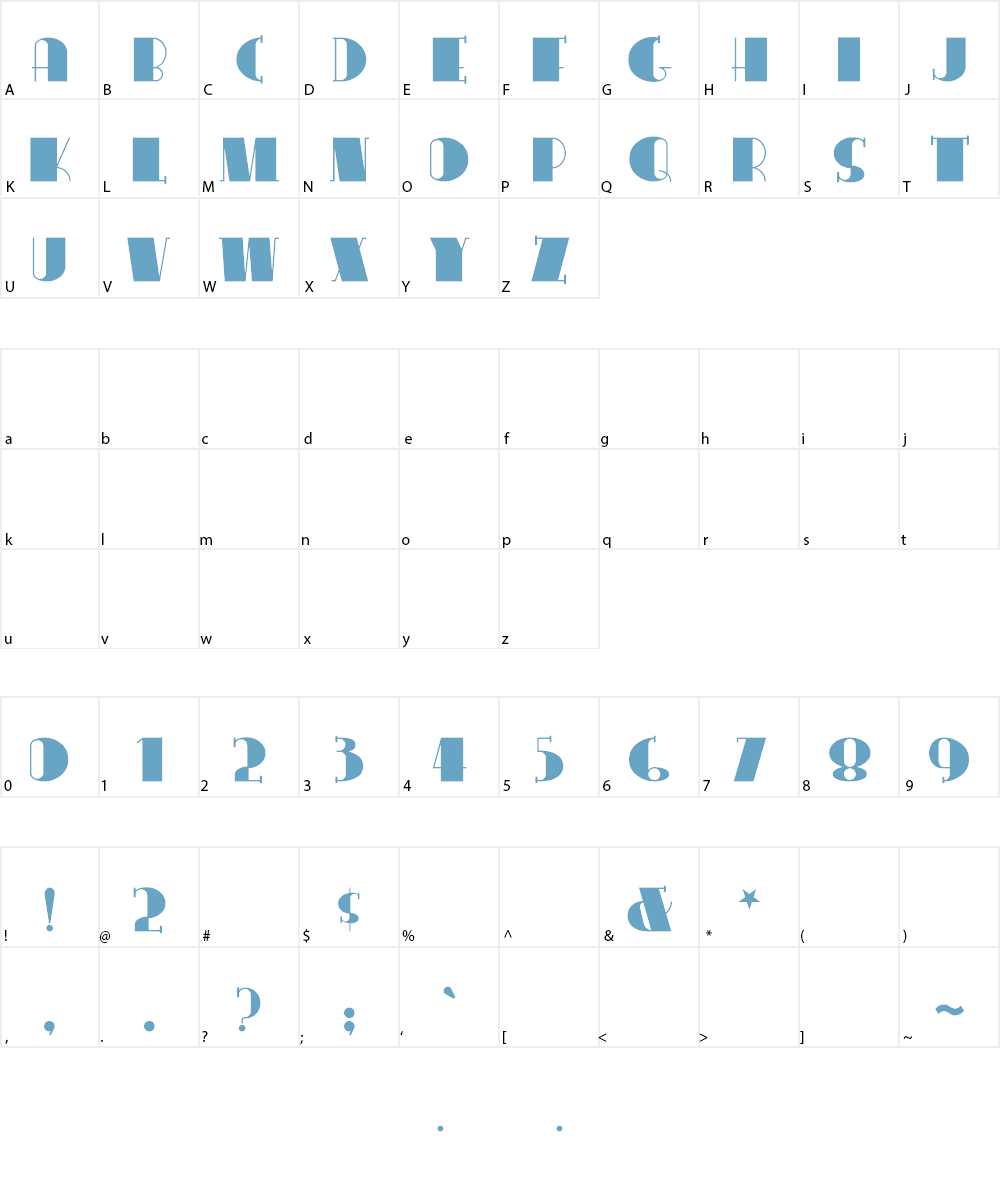
Okay, everybody line up! Here’s a quirky font that I ran across in a book called Typology by the dynamic duo of Steven Heller and Louise Fili. Unfortunately, these usually reliable type historians got the designer’s name wrong, and failed to mention that the font shown was only one of countless permutations possible with the Super Veloz arsenal of interchangeable fonts designed by demented Spaniard Juan Trochut Blanchard. I only had the word “CONGA” to work from, but those few characters gave me some insight into the “rules” for the font (and odd rules they are), and I took it from there. The result is a bumpin’, jumpin’ and bongo-thumpin’ fun font, suitable for any festive occasion.